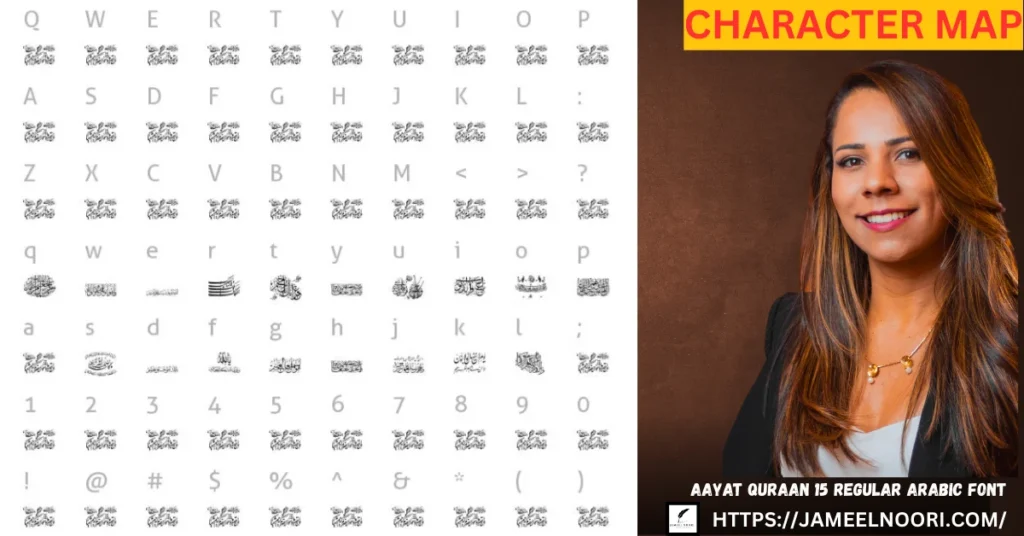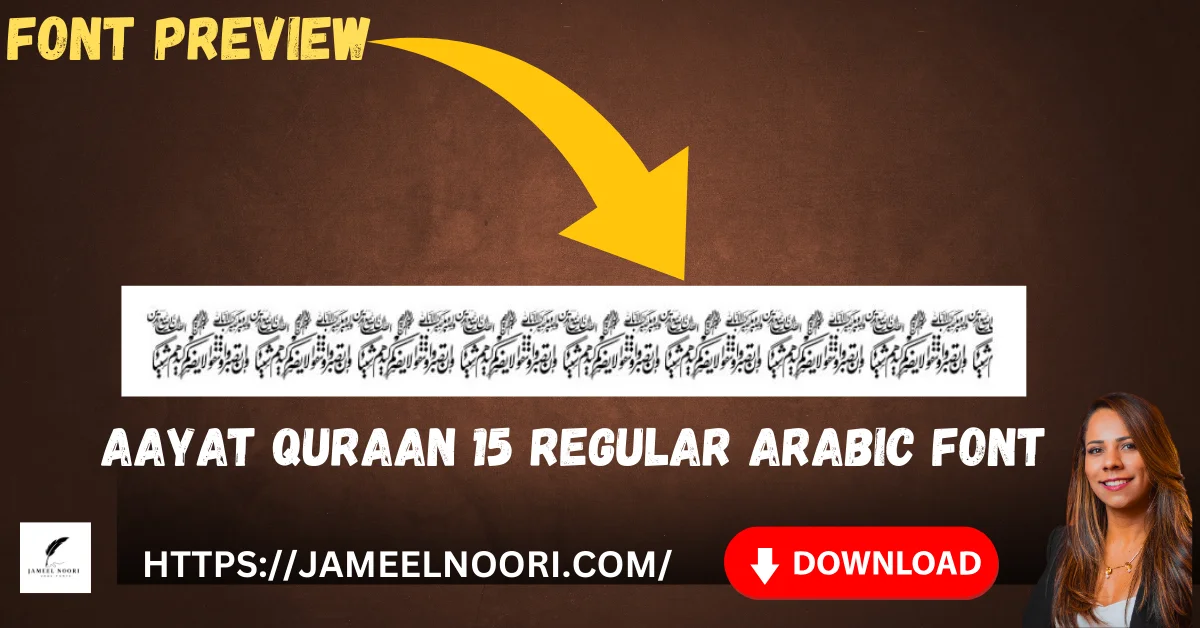
Introduction to Aayat Quraan 15 Regular Arabic Font
Aayat Quraan 15 Regular Arabic Font is one of the most popular Quranic-style Arabic fonts widely used in Pakistan, especially for Urdu typesetting, Islamic books, and digital calligraphy projects. This font is admired for its smooth readability, beautiful calligraphic style, and compatibility with all major devices. In Pakistan—particularly in Lahore and Karachi—designers use this font for high-quality Quranic verses, Naat scripts, and premium Arabic layouts.
What Makes Aayat Quraan 15 Regular Arabic Font the Best Choice?
Key Features:
- Smooth Arabic calligraphy suitable for Islamic content
- Perfect for Quranic scripts, posters, banners, and publishing
Where to Use Aayat Quraan 15 Regular Arabic Font (Best Use Cases)
The Aayat Quraan 15 Regular Arabic Font is ideal for users who want premium Arabic calligraphy without compromising readability. It is especially popular in the following areas:
Popular Use Cases:
- Designing Quranic verses for posters
- Naat and Manqabat titles
- Islamic books and magazine headings
- Social media Islamic posts
- Elegant Urdu-to-Arabic hybrid designs
Who Should Use This Font?
| User Type | Reason to Use |
| Students | Arabic assignments & projects |
| Designers | Premium Islamic calligraphy |
| Publishers | Quranic printing layouts |
| Content Creators | Islamic posts & thumbnails |
Why Pakistani Users Prefer Aayat Quraan 15 Regular Arabic Font
For users searching in Pakistan—and especially in cities like Karachi, Lahore, and Islamabad—the Aayat Quraan 15 Regular Arabic Font is considered an expert-choice Arabic font. The readability, professionalism, and elegant calligraphic touch make it an ideal option for both print and digital use.
Pakistan-based designers love this font because:
- It supports advanced Arabic ligatures
- The stroke quality is premium and refined
- The font looks elegant even in large print sizes
The Aayat Quraan 15 Regular Arabic Font is one of the best, latest, and most reliable Arabic fonts for digital Islamic calligraphy and Urdu publishing. With thousands of downloads and top-tier ratings, it remains an expert-choice font for designers and students in Pakistan. Whether you are creating Islamic posters, Quranic text, or premium Arabic layouts, this font delivers exceptional results every time.
What is Aayat Quraan 15 Regular Arabic Font?
It is a high-quality Arabic TrueType font used for Quranic designs, Urdu calligraphy, and Islamic publishing.
Can I use this font for Quranic text?
Absolutely. Its style is specifically designed for clean Quranic formatting.
Is this font suitable for printing?
It is ideal for high-quality printing, especially Islamic books.
Does it support Arabic ligatures?
Yes, the font supports smooth ligatures for effective Arabic text flow.
Why do Pakistani users prefer this font?
Due to its readability, beauty, and compatibility with common software in Pakistan.